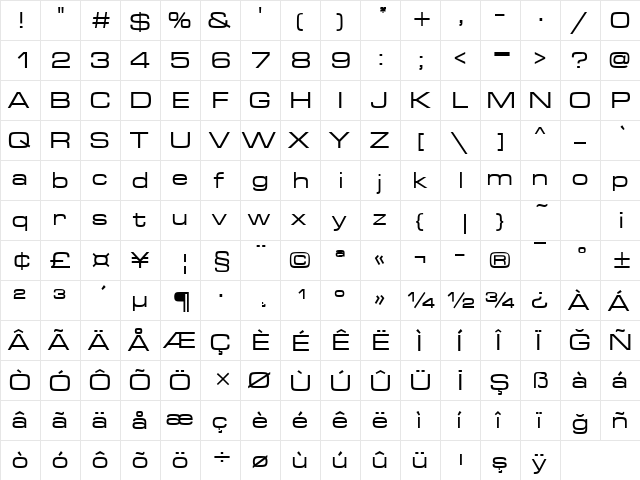
Turkish Microgramma Regular
Design Context for Turkish Microgramma Typeface
Turkish Microgramma takes a measured approach to typography — its balanced proportions and neutral character make it a reliable workhorse for both digital and print work.
Pro Tip: Use Turkish Microgramma in both headline and body roles to test its range before committing to a single application.